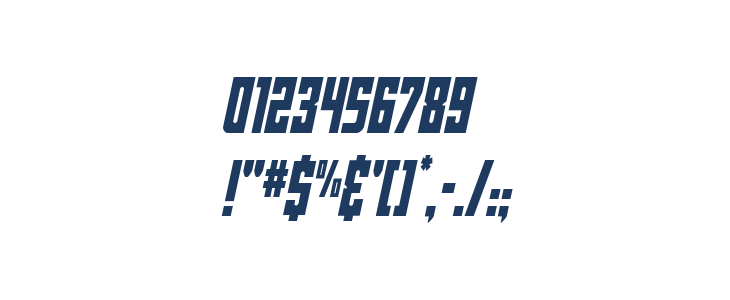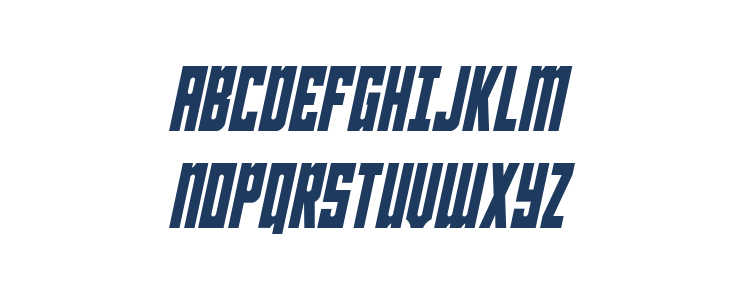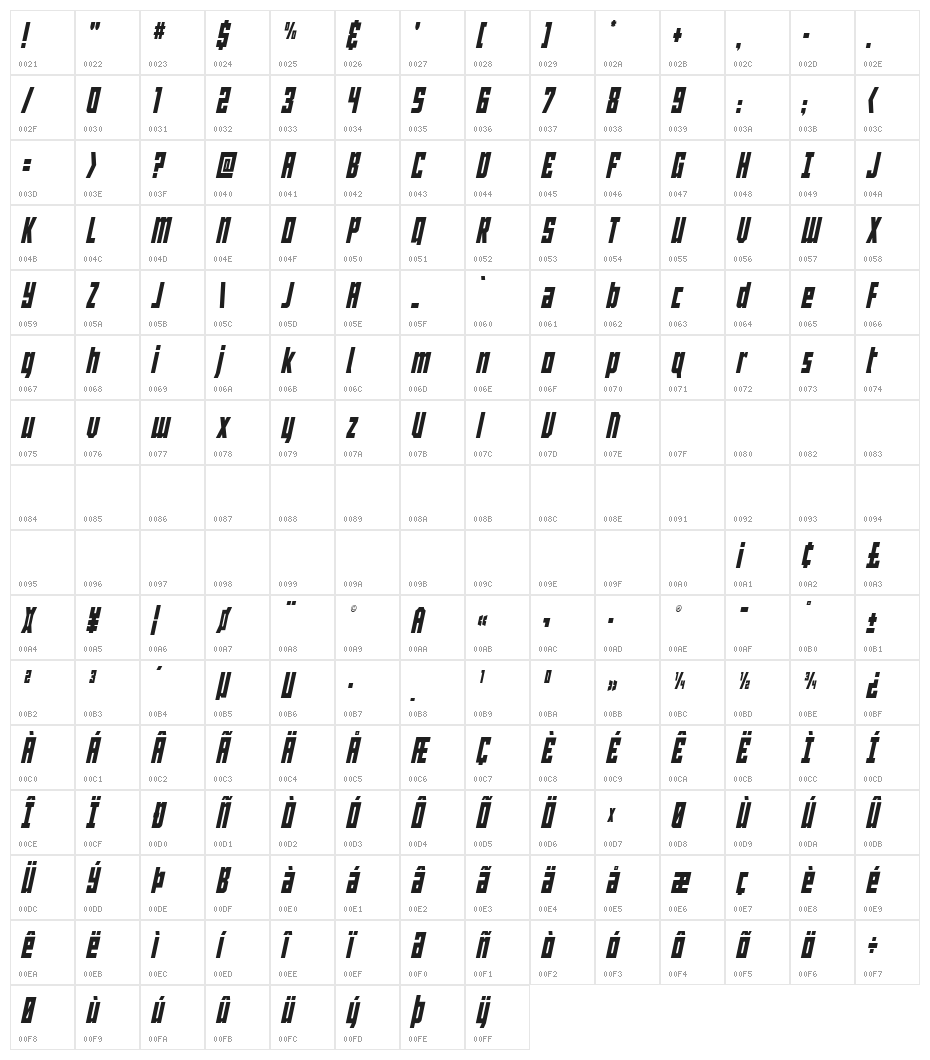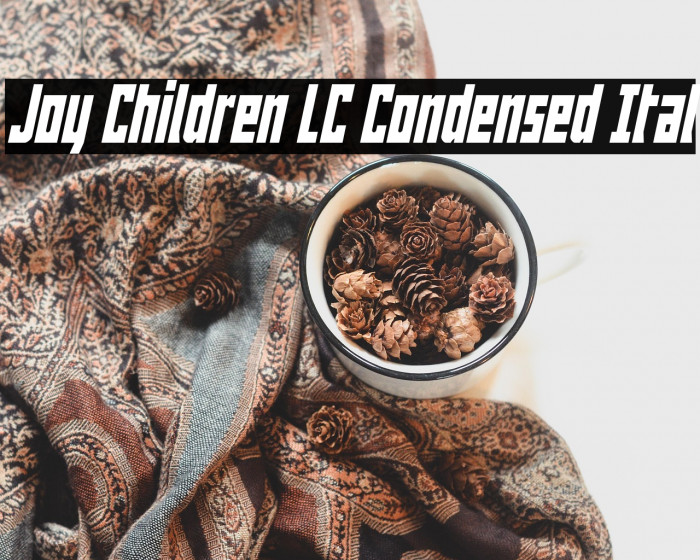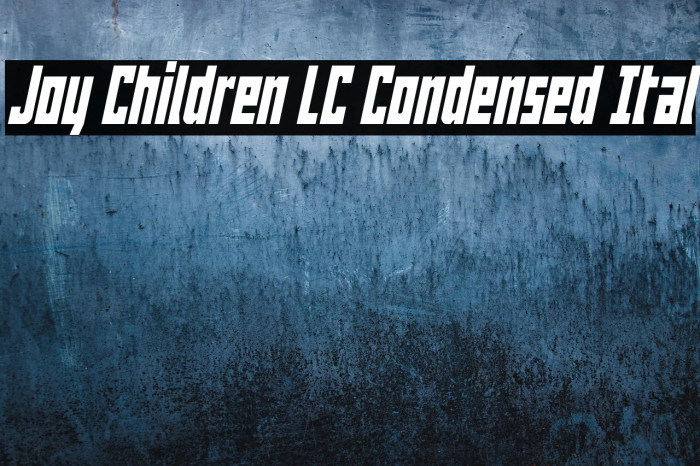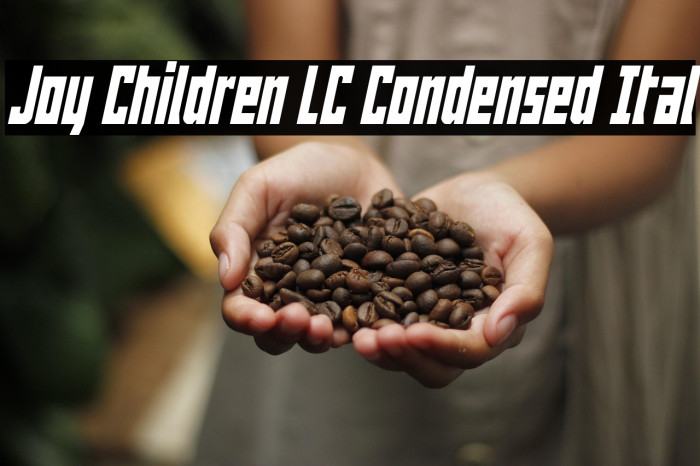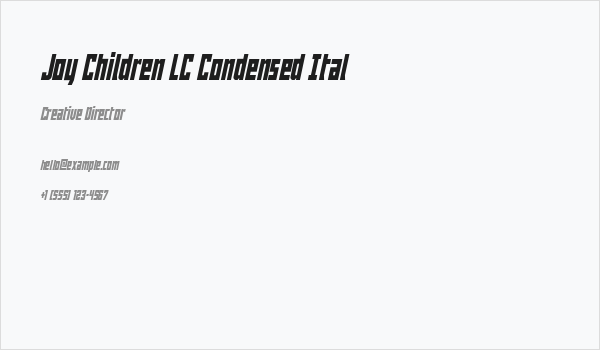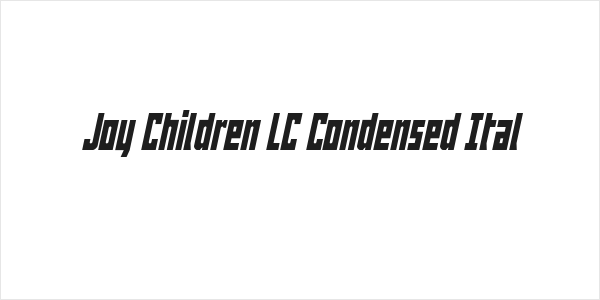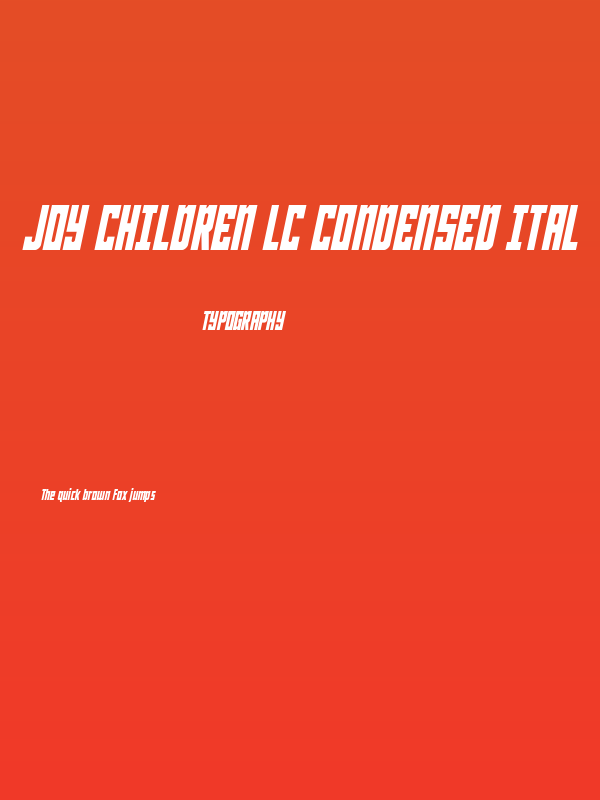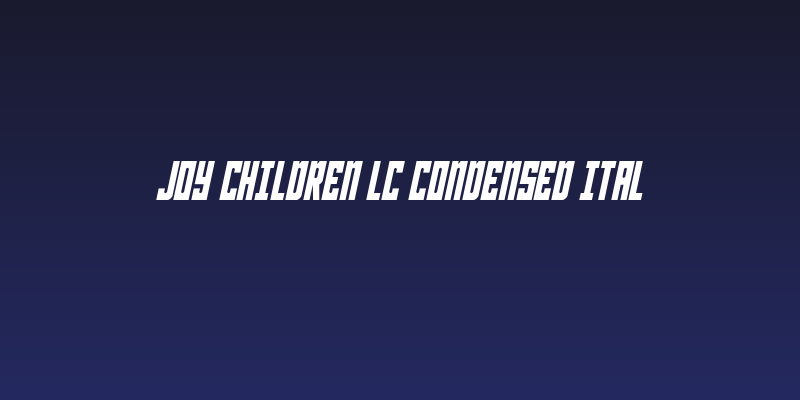
Joy Children LC Condensed Ital Font
Joy Children LC Condensed Ital Description
Bold, italic, condensed sans-serif font with a futuristic and dynamic style.
| Overall Style | Modern, Futuristic |